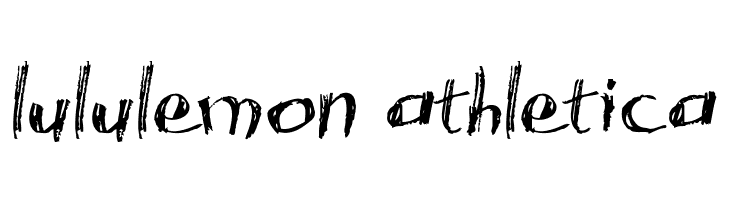
( Fonts by Andrea Cerboneschi - Personal-use only. For commercial use please contact owner. ) A bold, dramatic blackletter font with intricate detailing. Descarcă 73 Descărcări@WebFont
( Fonts by www.sweeep.fr - Damien Gosset ) A playful, hand-drawn style font with bold, irregular strokes. Descarcă 2103 Descărcări@WebFont
( Fonts by Fabrika De Typos - Marcio Hirosse - fabrikadetypos.blogspot.com ) A bold, grungy font with a distressed, brush-painted appearance. Descarcă 655 Descărcări@WebFont
( Fonts by Rory Minchin-King - Personal-use only. For commercial use please contact owner. ) A bold, modern sans-serif font with clean lines and excellent readability. Descarcă 718 Descărcări@WebFont
( Tomás Arriola ) A flowing, cursive font with elegant loops and swashes, offering a handwritten appearance. Descarcă 87 Descărcări@WebFont
( Fonts by Hamzah Muhamad Ihsan - Typesthetic Studio - Personal-use only. For commercial use please contact owner. ) A decorative script font with elegant loops and swirls, perfect for artistic projects. Descarcă 47 Descărcări@WebFont
( Fonts by David Kerkhoff - www.hanodedphotography.com ) A chaotic, graffiti-inspired font with irregular, jagged strokes. Descarcă 279 Descărcări@WebFont
( Fonts by Darrell Flood - Personal-use only. For commercial use please contact owner. ) A bold, angular font with a modern, aggressive style. Descarcă 391 Descărcări@WebFont
( Fonts by Darrell Flood - Personal-use only. For commercial use please contact owner. ) A bold, italicized font with sharp angles and a futuristic design. Descarcă 287 Descărcări@WebFont
( Copyright (c) 2000-2013, SIL International (http://scripts.sil.org/) ) A classic serif typeface with elegant serifs and a traditional design. Descarcă 2860 Descărcări@WebFont
( Fonts by Alan Carr ) A playful, bold font with rounded, bubble-like characters. Descarcă 4995 Descărcări
( Fonts by a Adrian Candela - http://www.behance.net/takuminokami . Personal-use only. For commercial use please contact owner. ) A bold and elegant serif typeface with a classic yet modern appearance. Descarcă 292 Descărcări@WebFont
( Fonts by a Adrian Candela - http://www.behance.net/takuminokami . Personal-use only. For commercial use please contact owner. ) A classic serif font with high contrast and elegant serifs. Descarcă 253 Descărcări@WebFont
( Fonts by a Adrian Candela - http://www.behance.net/takuminokami . Personal-use only. For commercial use please contact owner. ) A modern, geometric font with clean lines and rounded edges. Descarcă 191 Descărcări@WebFont
( Fonts by a Adrian Candela - http://www.behance.net/takuminokami . Personal-use only. For commercial use please contact owner. ) A bold, decorative font styled like a filmstrip, perfect for cinematic themes. Descarcă 1283 Descărcări@WebFont
( Fonts by a Adrian Candela - http://www.behance.net/takuminokami . Personal-use only. For commercial use please contact owner. ) A bold, geometric font with a three-dimensional shadow effect. Descarcă 374 Descărcări@WebFont
( Fonts by a Adrian Candela - http://www.behance.net/takuminokami . Personal-use only. For commercial use please contact owner. ) A bold, three-dimensional font with a shadow effect and geometric design. Descarcă 263 Descărcări@WebFont
( Fonts by a Adrian Candela - http://www.behance.net/takuminokami . Personal-use only. For commercial use please contact owner. ) A 3D outline font with a geometric, architectural style. Descarcă 263 Descărcări@WebFont
( Fonts by Adrian Candela - Personal-use only. For commercial use please contact owner. ) A bold, geometric font with angular and curved elements for a modern look. Descarcă 65 Descărcări@WebFont
( Fonts by Angeline Clara - Personal-use only. For commercial use please contact owner. ) A playful and whimsical font with heart motifs and rounded characters. Descarcă 173 Descărcări@WebFont
( Fonts by a Adrian Candela - http://www.behance.net/takuminokami . Personal-use only. For commercial use please contact owner. ) A modern, geometric font with art deco influences, ideal for stylish and sophisticated designs. Descarcă 886 Descărcări@WebFont
( Fonts by a Adrian Candela - http://www.behance.net/takuminokami . Personal-use only. For commercial use please contact owner. ) A modern, geometric font with art deco influences and sharp, clean lines. Descarcă 305 Descărcări@WebFont
( Fonts by a Adrian Candela - http://www.behance.net/takuminokami . Personal-use only. For commercial use please contact owner. ) A geometric outline font with a modern and structured design. Descarcă 140 Descărcări@WebFont
( Fonts by a Adrian Candela - http://www.behance.net/takuminokami . Personal-use only. For commercial use please contact owner. ) A bold, geometric font with strong lines and a modern aesthetic. Descarcă 254 Descărcări@WebFont
( Fonts by www.aka-acid.com ) A playful, hollow, hand-drawn font with bold outlines and artistic flair. Descarcă 453 Descărcări@WebFont
( Fonts by Edom Wahyudi ) A bold, brush-like font with an expressive, hand-drawn style. Descarcă 2262 Descărcări@WebFont
( Fonts by Mohammed Rahman ) A bold, geometric font with a strong, authoritative presence. Descarcă 17689 Descărcări@WebFont